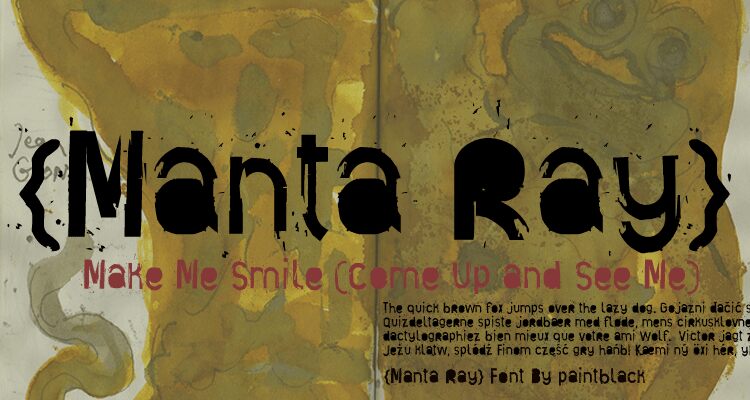
Manta Ray by paintblack is a free distorted display font with blunt, oversized letters and an unruly cut-and-paste silhouette. Uneven widths, chipped edges, and scattered flecks make the lettering look battered rather than neatly distressed.
Its rough punk attitude is aimed at music, skate, and streetwear audiences. It suits gig posters and record sleeves, where the broken shapes can echo photocopied artwork. Clothing graphics and festival branding are equally convincing uses for its loud, imperfect forms.